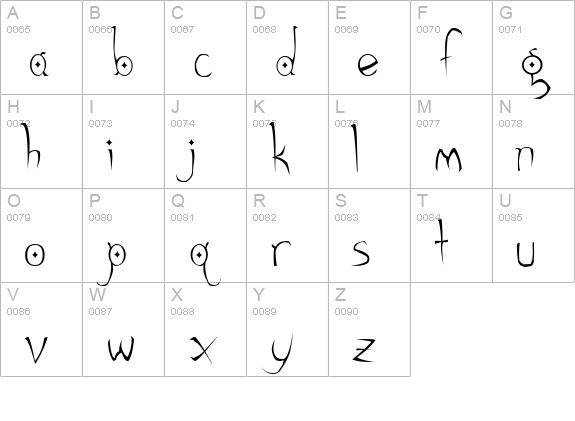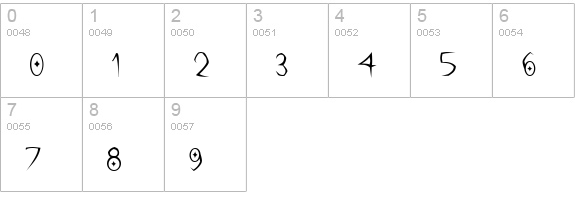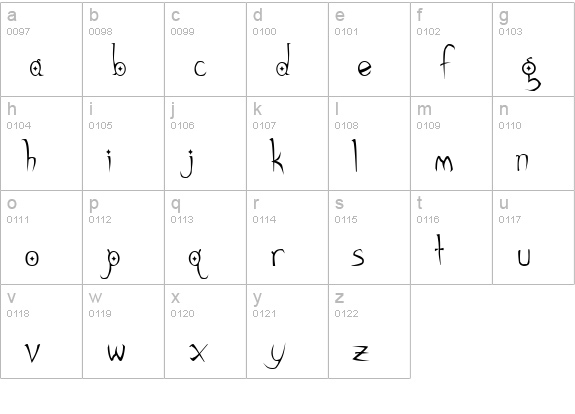
Gothic Hijinx Font Details
Gothic Hijinx font is a captivating and mysterious typeface that combines gothic aesthetics with a playful twist. Its ornate and intricate design makes it perfect for adding a touch of drama to your projects, whether it's for branding, invitations, or signage. The sharp edges and exaggerated serifs give Gothic Hijinx a bold and distinctive look that is sure to stand out. And the best part? Gothic Hijinx font is completely free to download at FontsMarket.com! So go ahead and unleash your creativity with this unique and eye-catching typeface. Whether you're designing a gothic-inspired poster or creating a spooky Halloween invitation, Gothic Hijinx font is the perfect choice to add a touch of intrigue and elegance to your designs. Download it now and let the hijinx begin!